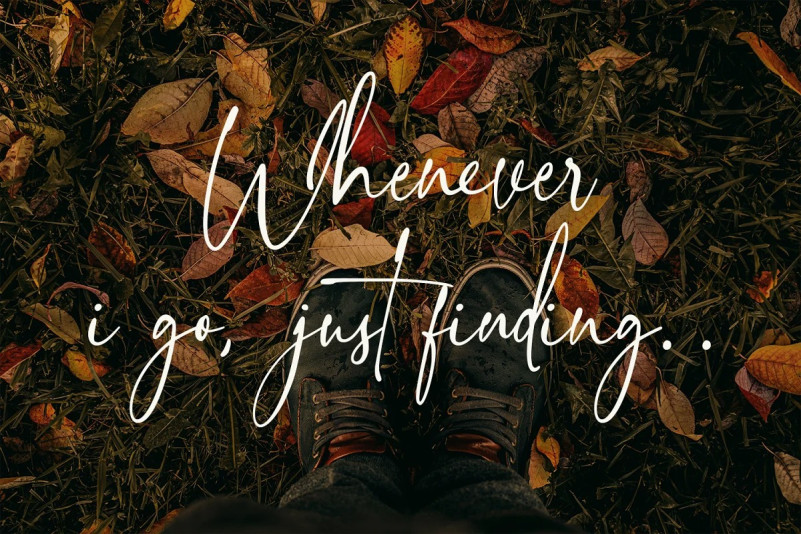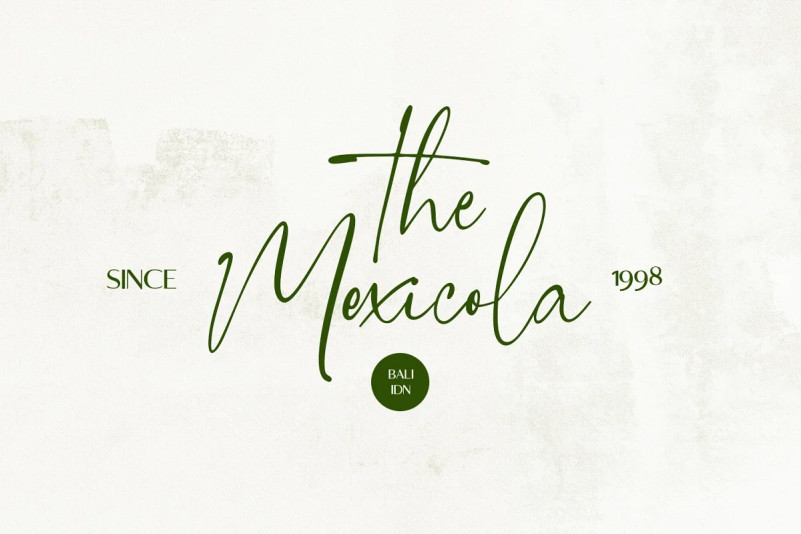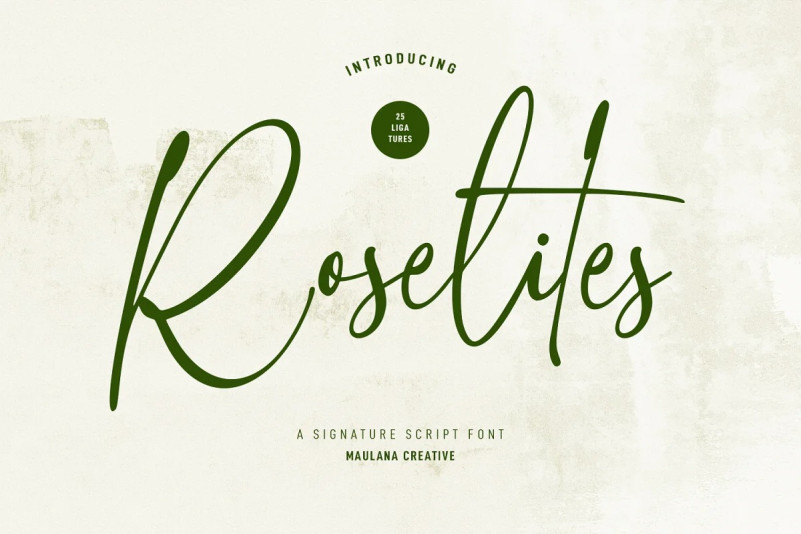
Roselites Font
Roselites Font is an elegant modern script font. With high contrast stroke, fun character with a bit of ligatures and alternates. To give you an extra creative work. Roselites font support multilingual more than 100+ language. This font is good for logo design, Social media, Movie Titles, Books Titles, a short text even a long text letter and good for your secondary text font with sans or serif. Make a stunning work with Roselites font.